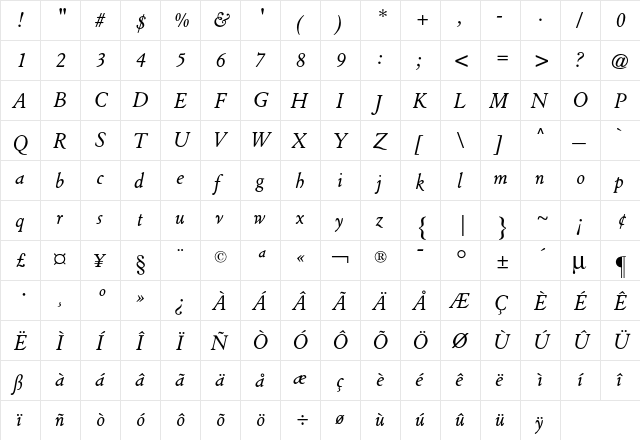
Cloister CG Italic
Design Context for Cloister CG Typeface
Cloister CG offers clean, dependable letterforms without strong stylistic allegiance, making it a practical choice for designers who need flexibility. The dynamic lean of this cut emphasises speed and emphasis in any layout.
Pro Tip: Try Cloister CG for annotation and caption copy alongside an upright companion — the contrast in angle creates a dynamic but ordered typographic system.